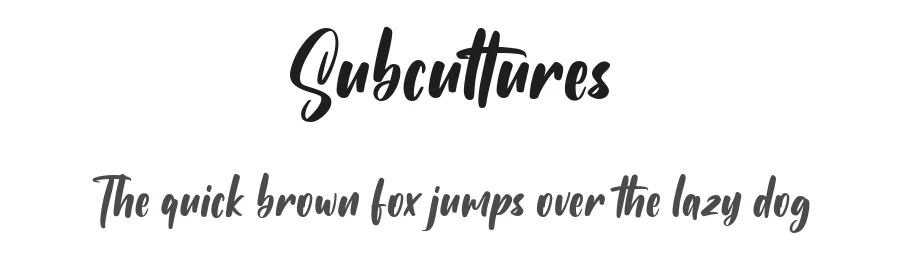
About Sunquish Font
| Designer | Rian Rahardi |
Sunquish Font is a script font that shines as a display or heading face. Pair it with a clean sans-serif or serif font for body text β the contrast creates a clear hierarchy while the two styles stay balanced and easy to read.